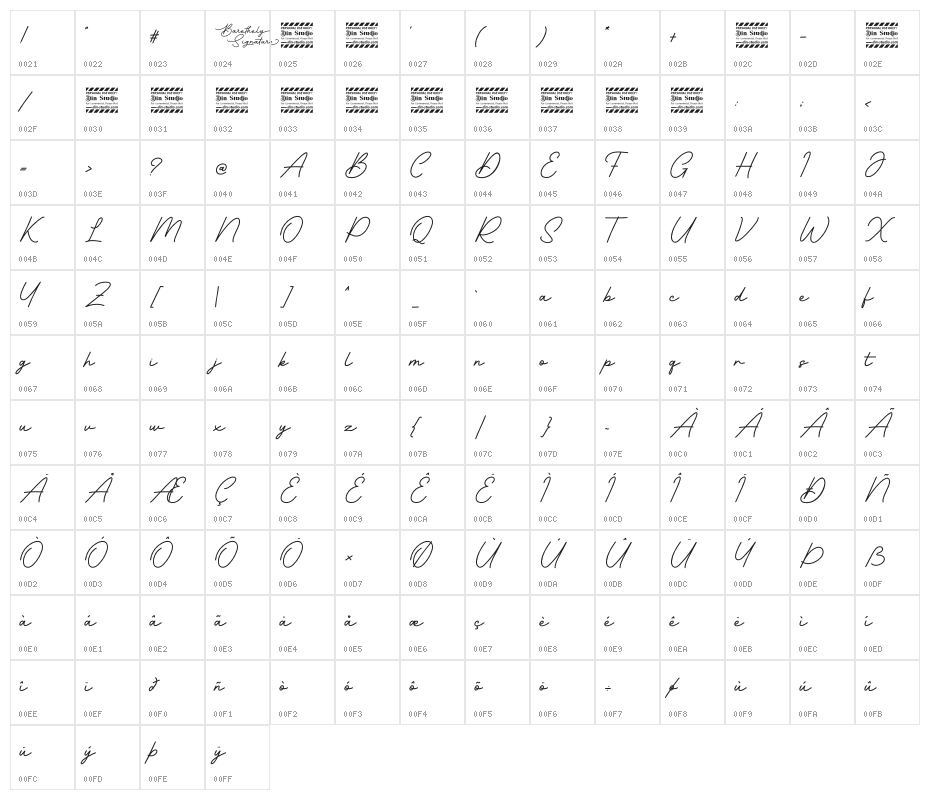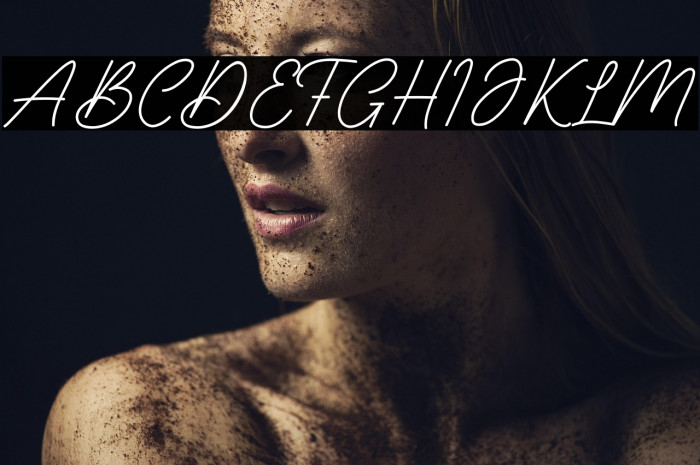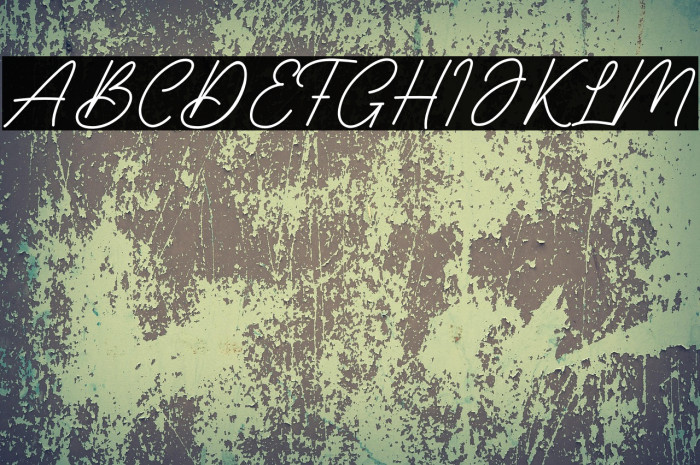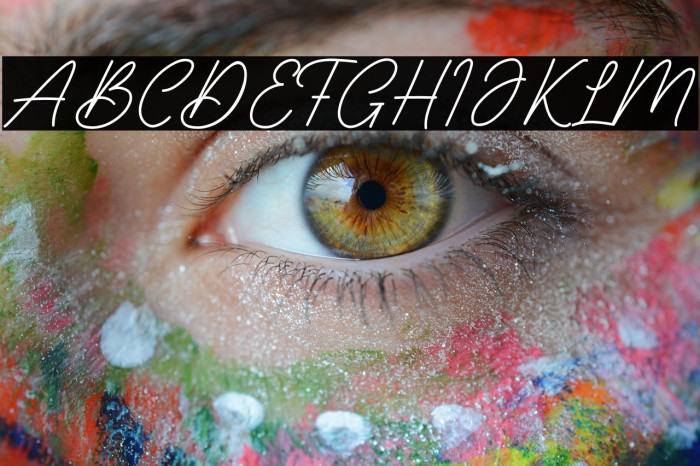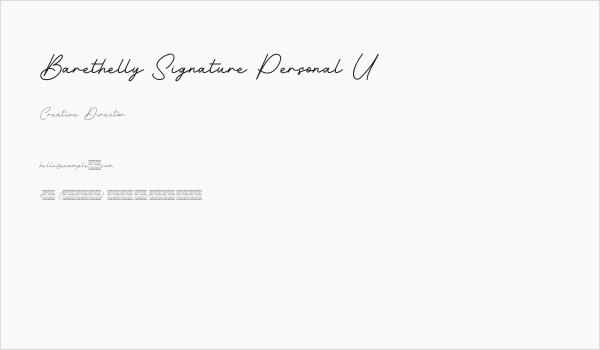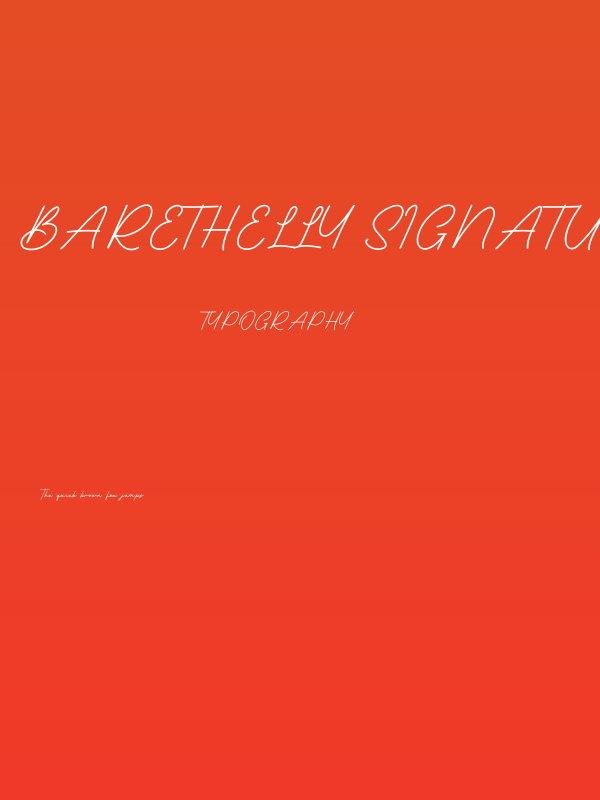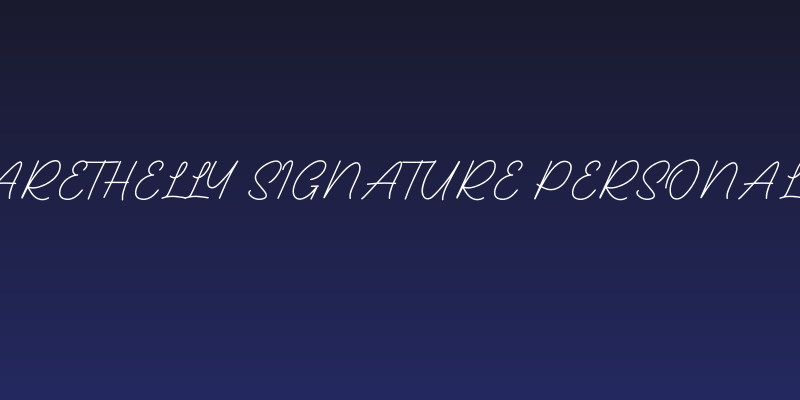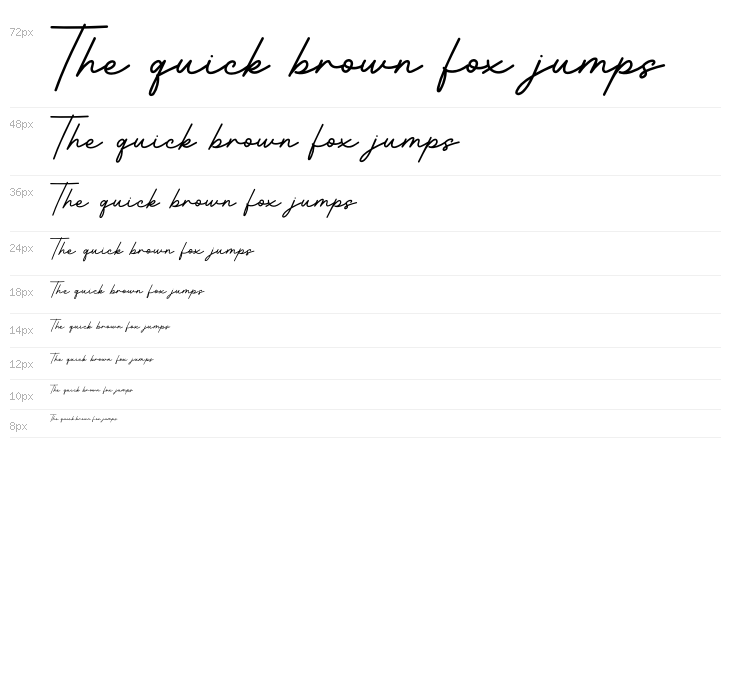
Barethelly Signature Personal U Font
Barethelly Signature Personal U Description
A cursive, handwritten font with a flowing and elegant style, featuring smooth, connected letters.
| Overall Style | Elegant, Personal |
| Use Case | Signatures, Branding, Invitations |
| Proposed Projects | Invitations, personal branding, signatures. |